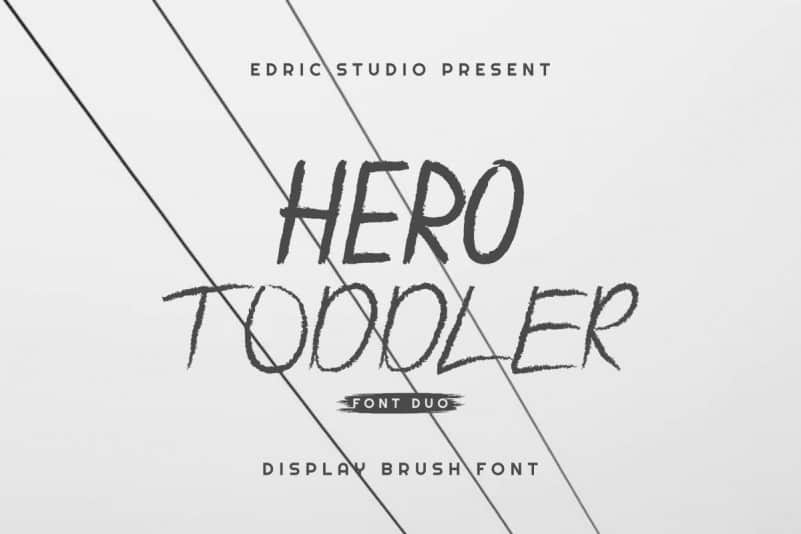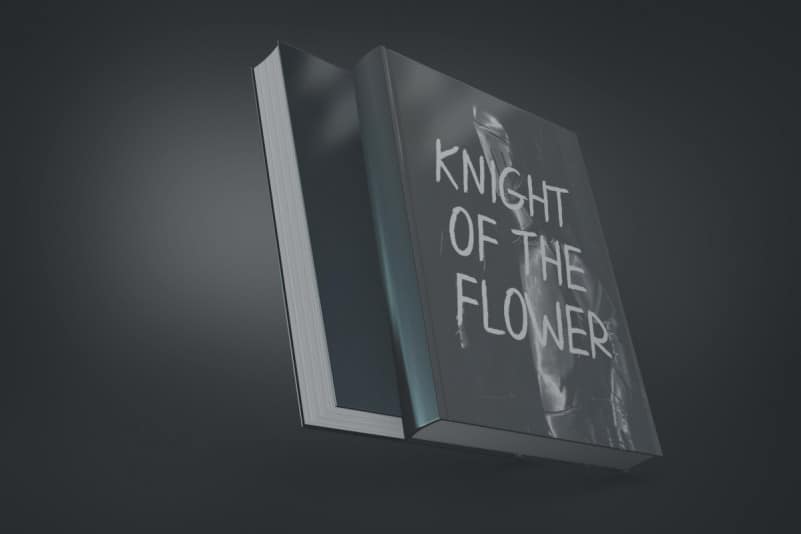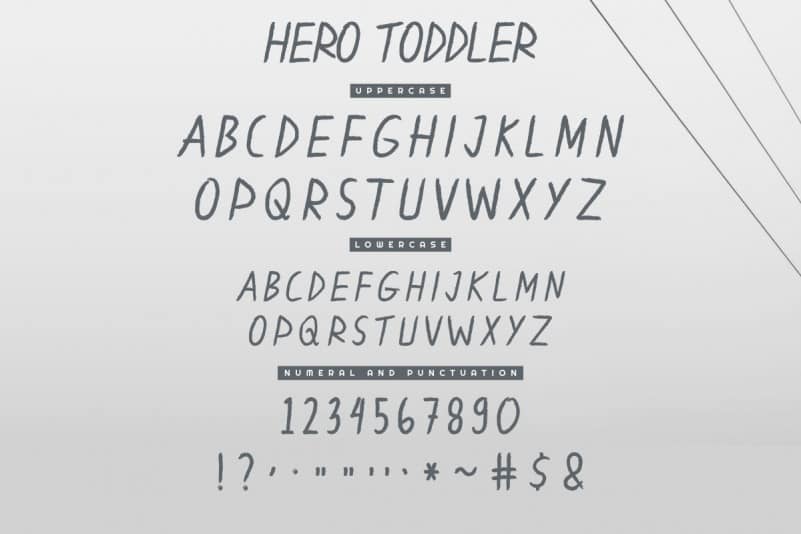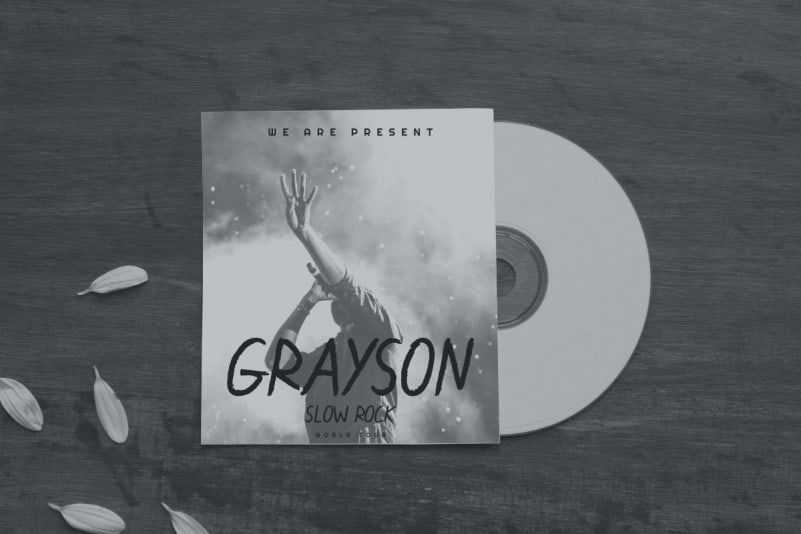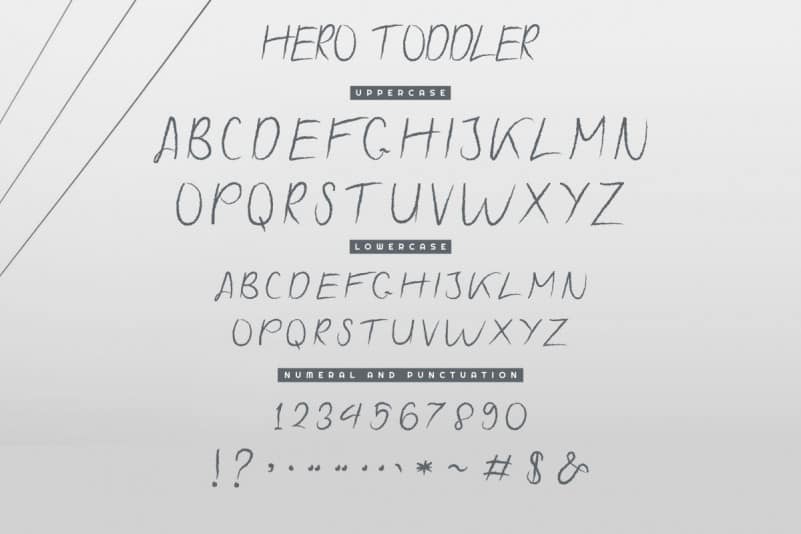
Hero Toddler Font Duo Family
Hero Toddler Font Duo Family is an exclusive font family with two different styles. This font has a stunning characters set, perfectly managed with well spaced and kerning. The theme style of this font will be horror, mystic, mysterious, glamour and fancy .